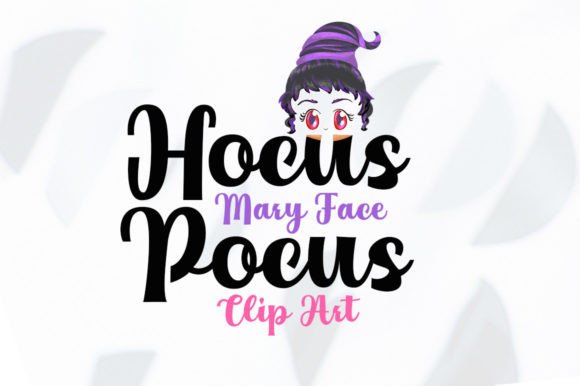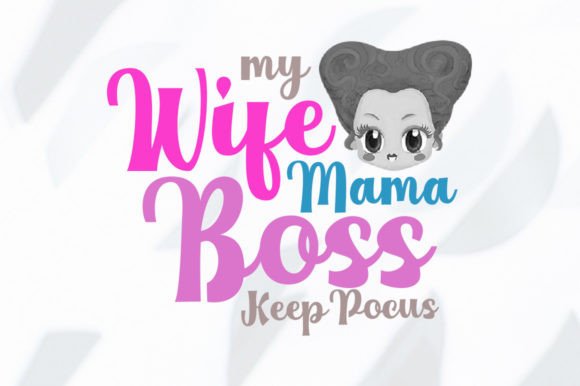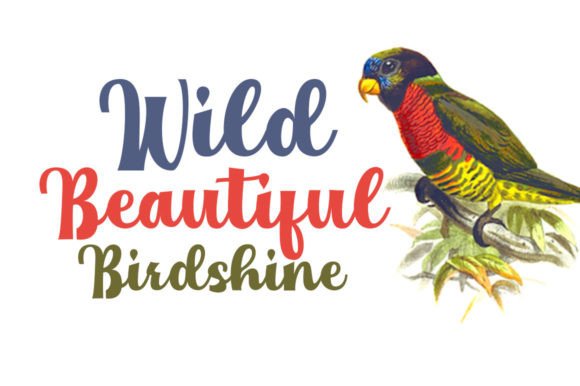
Introduction to Pocus Font
There’s nothing quite like the feeling of bringing a creative project to life. Whether you’re designing a wedding invitation, a thank you card, or a logo, the right font can make all the difference. For designers, finding the perfect font can be a daunting task, but what if I told you there’s a font that’s both charming and elegant, and can add a handwritten touch to any design?
Meet Pocus Font, a high-quality design resource that’s perfect for any creative project. With its free download option, you can add a touch of sophistication to your designs without breaking the bank. Whether you’re working on a business card, a logo, or a greeting card, Pocus Font is sure to impress. Its transparent background makes it easy to layer and combine with other design elements, giving you endless possibilities for creativity.
As a valuable resource for designers, Pocus Font offers a unique blend of elegance and charm that’s hard to find elsewhere. Its versatility makes it perfect for a wide range of designs, from wedding invitations to quotes, and its high-quality design ensures that it will look stunning on any project. So why settle for an ordinary font when you can have Pocus Font, the perfect addition to any design project.
Pocus Font
- High-quality, free download font suitable for creative projects
- Transparent background design resource ideal for digital art and graphics
- Includes a wide range of characters, including Latin, Cyrillic, and Greek alphabets
- Unique characteristic: Unique, hand-drawn style with intricate details and textures
Honest Review: Pocus Font
I recently had the chance to try out the Pocus Font and I must say it’s a great addition to my design resources. The high quality of this font is immediately noticeable, making it perfect for any creative project that requires a unique touch.
- What works well: ✨ The Pocus Font is a great choice for designers looking for a free download. It’s versatile and can be used for a variety of projects, from logotypes to digital displays.
- What works well: ✨ The font also features a transparent background, making it easy to integrate into any design without worrying about background issues.
However, I did notice a few limitations: ⚠️ The font is not as extensive as some other popular fonts, with only a limited number of styles and weights available.
Overall, I’m impressed with the Pocus Font and would definitely recommend it to designers looking for a high-quality, free download. It’s a great addition to any design resource library and is sure to be a hit with designers working on creative projects.
Pocus Font
Common Use Cases for Pocus Font
Pocus Font is ideal for creative projects such as logos, social media graphics, and marketing materials. Its unique design and high-quality features make it a popular choice among designers. You can also use the font to add a touch of elegance to your presentations and documents.
As a free download, Pocus Font is an absolute must-have for any designer looking to take their creative project to new heights. Its unique style and versatility make it a valuable asset in any design arsenal. So why wait? Download Pocus Font today and discover a world of creative possibilities. With its high quality and transparent background, the only limit is your imagination!